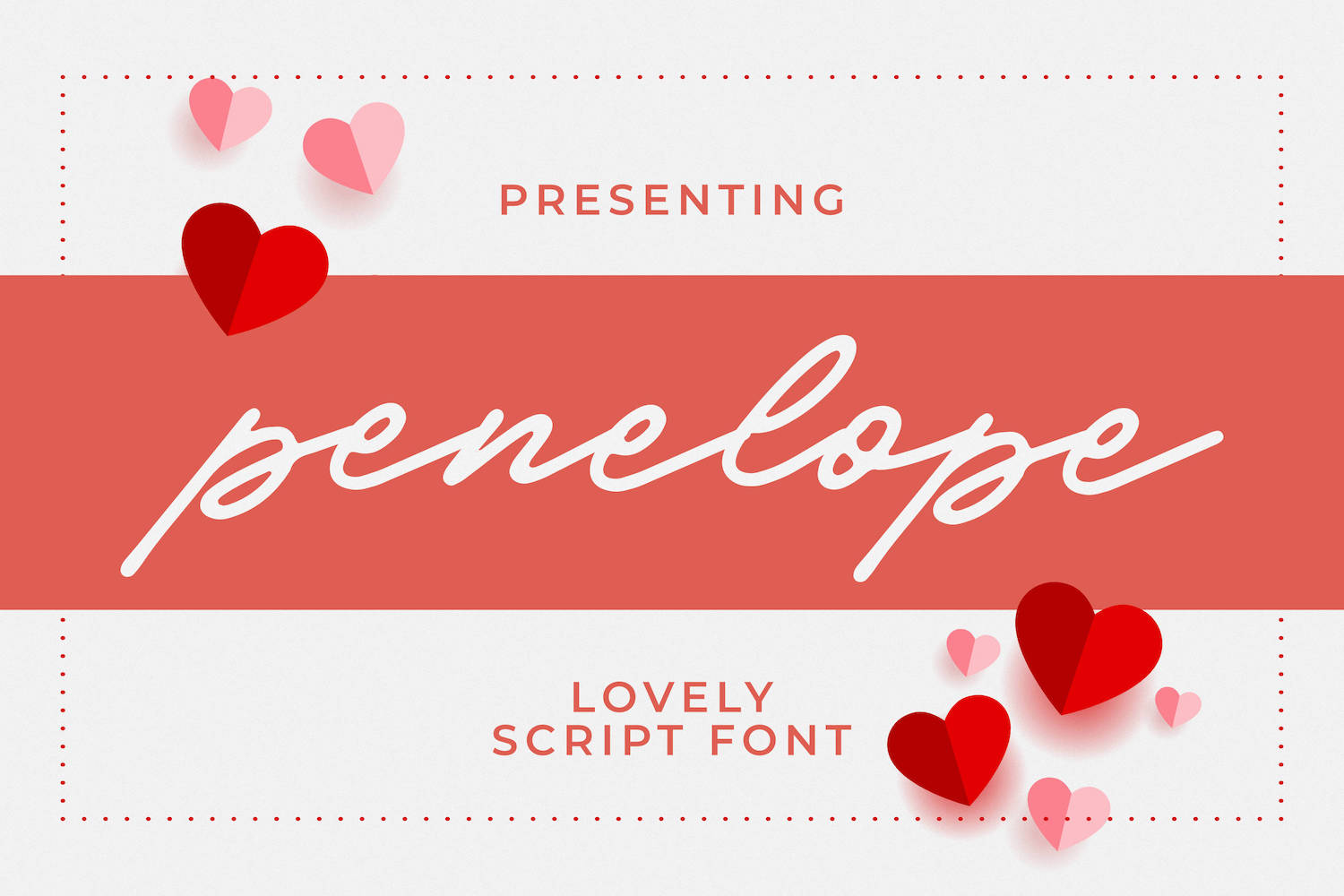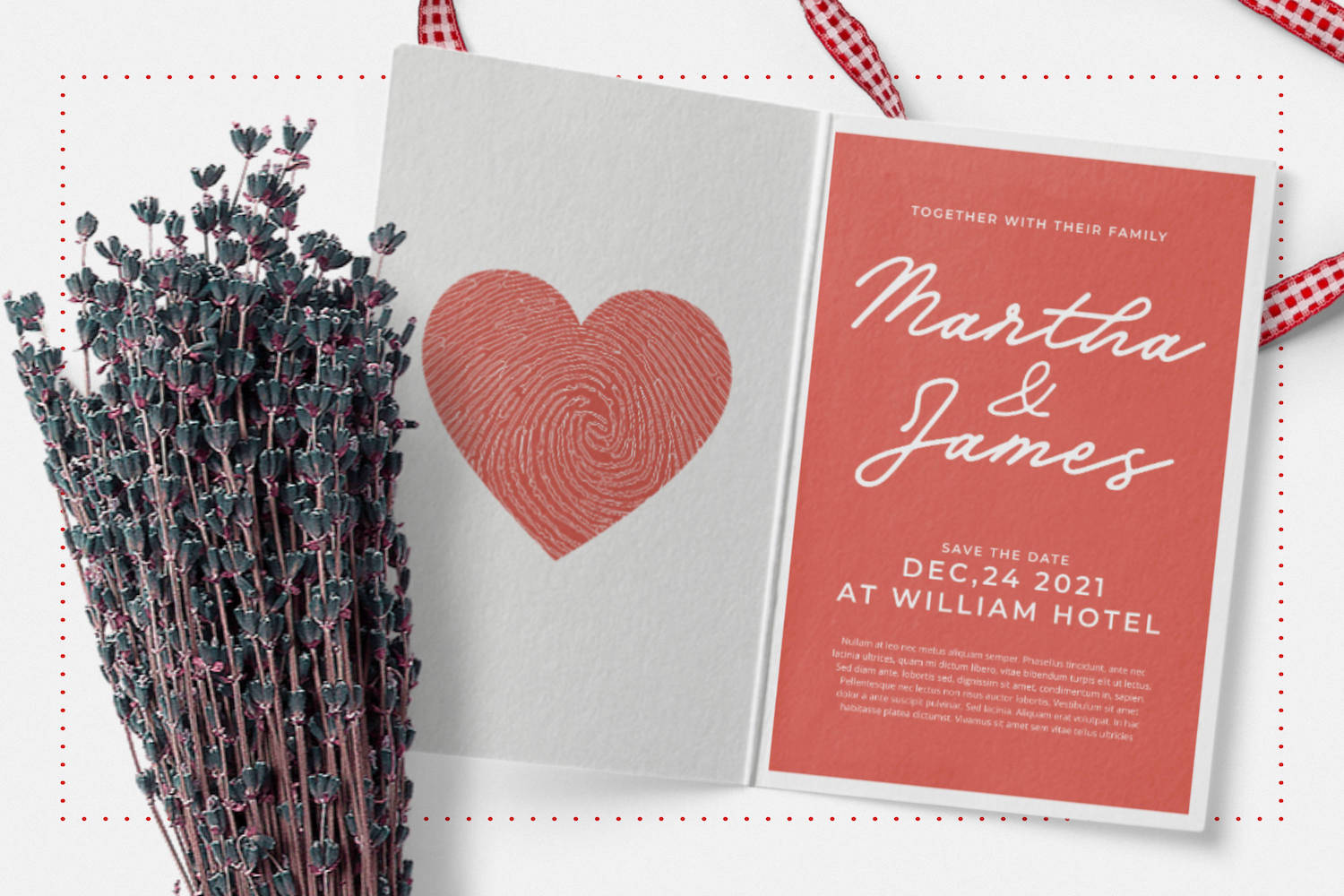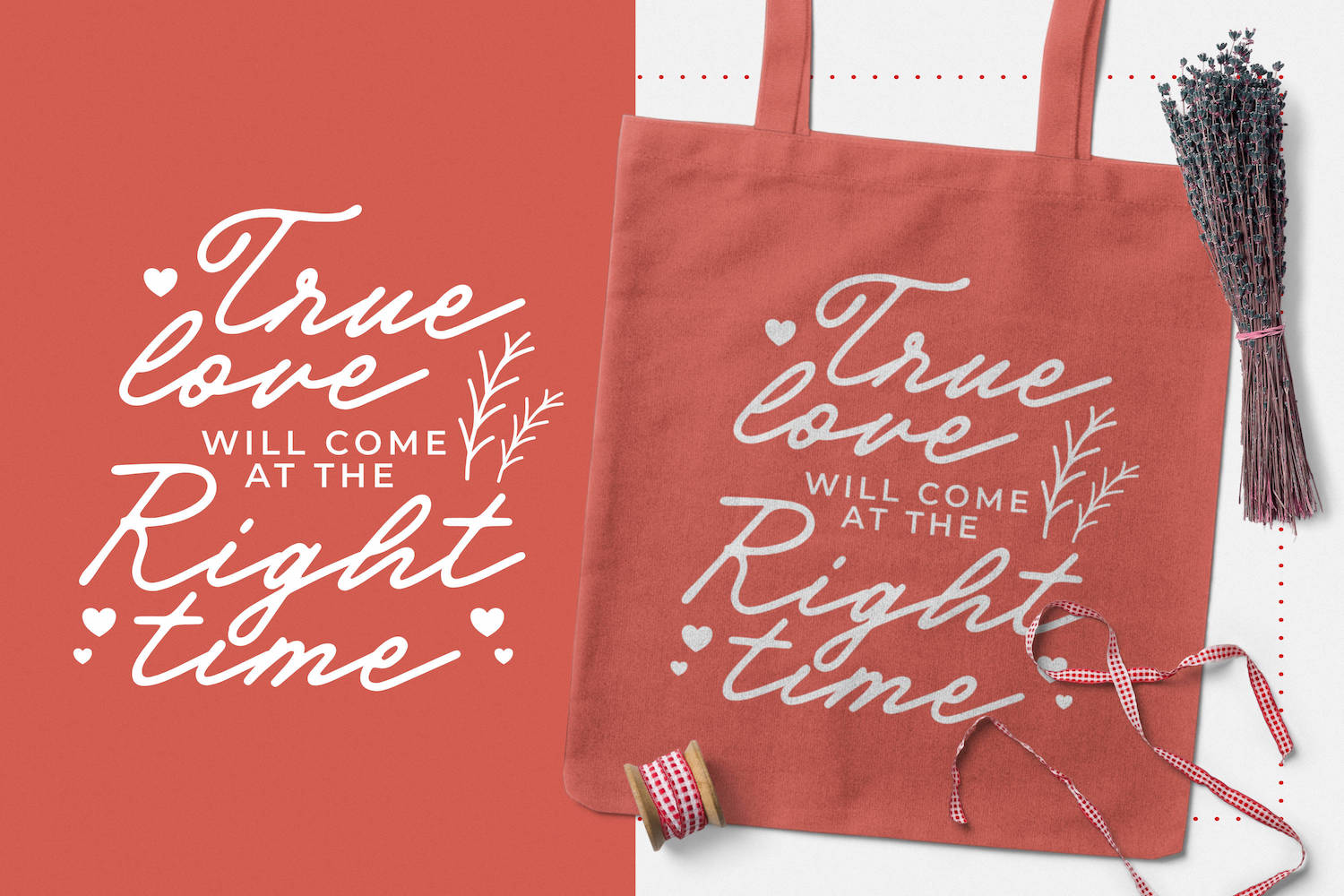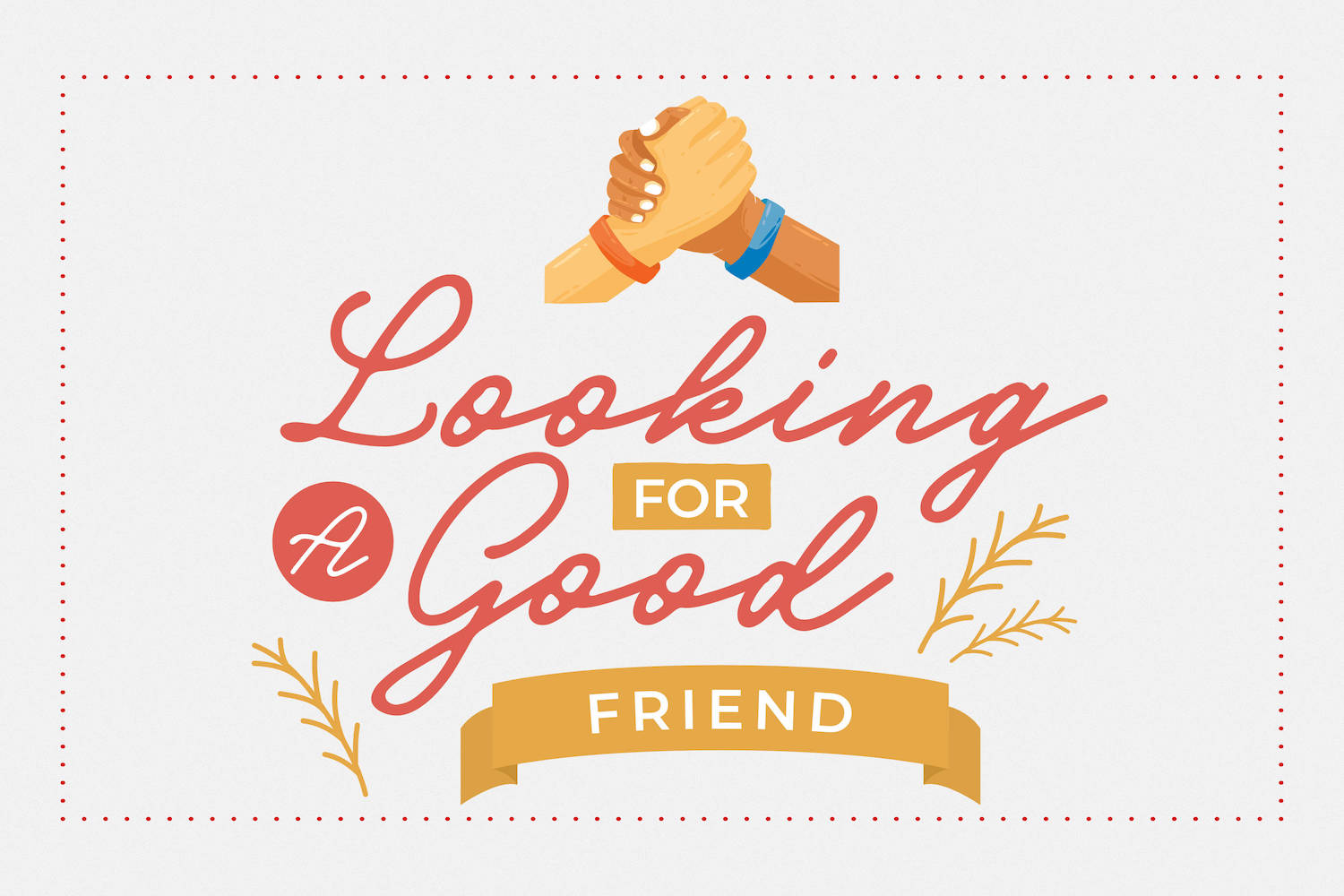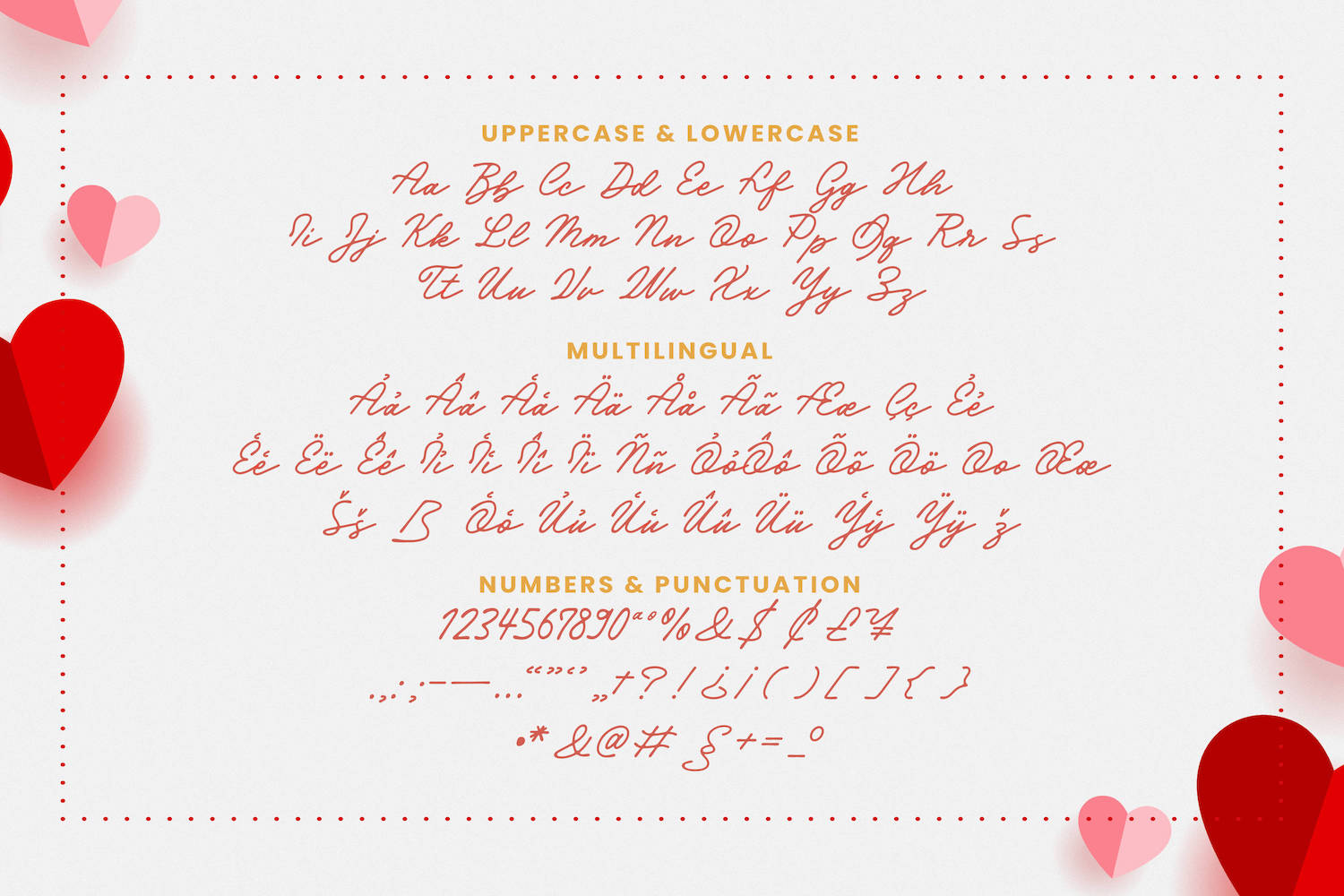
Penelope is a lovely handwritten script font that brings a sense of warmth, elegance, and personal charm to every design. With its flowing letterforms and gentle curves, it is perfect for romantic themes such as wedding invitations, greeting cards, and heartfelt branding projects. Its carefully designed characters mimic natural handwriting, making your messages feel genuine and sincere.
This script font comes with complete uppercase and lowercase characters, multilingual support, and a wide range of punctuation and symbols. Whether you’re working on a love-themed quote, a personal blog header, or stylish product packaging, Penelope adds a graceful and affectionate tone to your typography design.